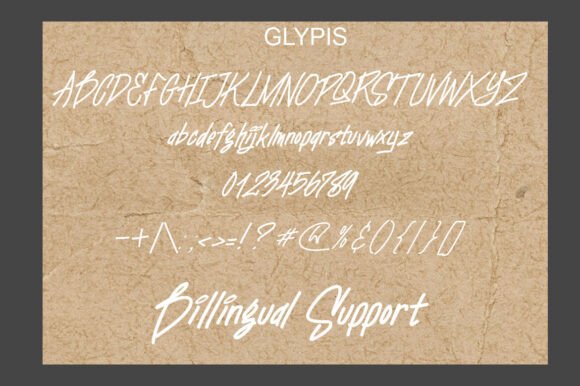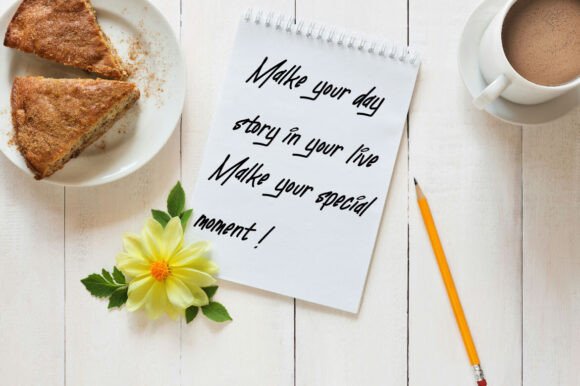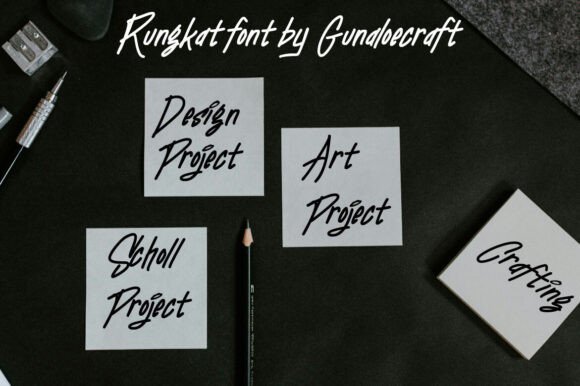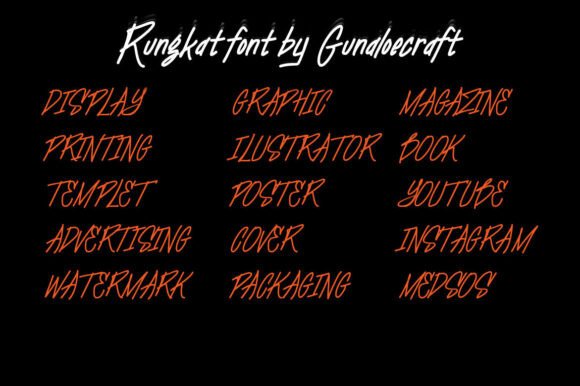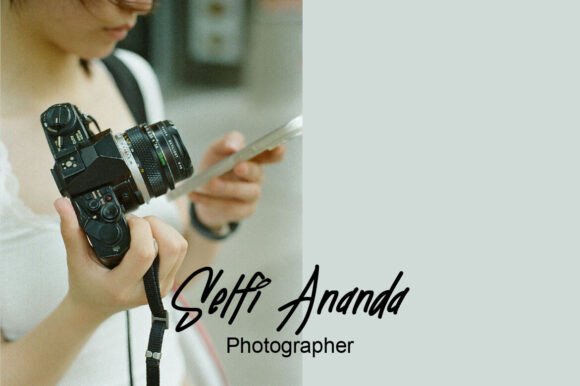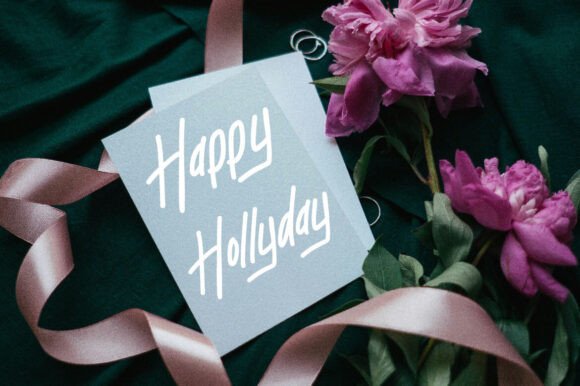
Introduction to Rungkat Font
Rungkat, a modern handwritten font, gracefully encapsulates both sophistication and simplicity.
Placing prominence on a contemporary and minimalist vibe, Rungkat flourishes with an elegant uniform stroke width The letterforms in Second Rate arenโt simply created โ they are meticulously crafted, embodying a harmonious blend of precision and movement.